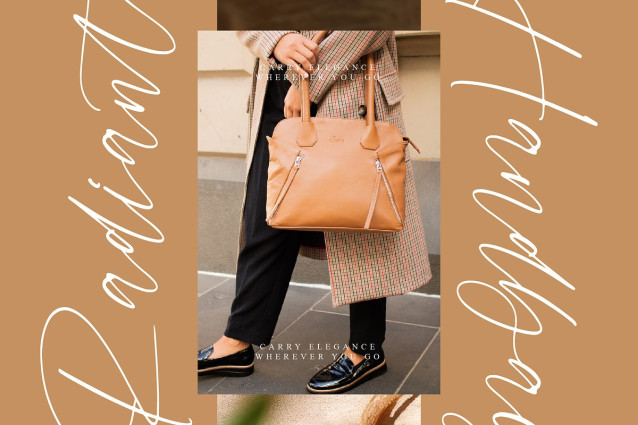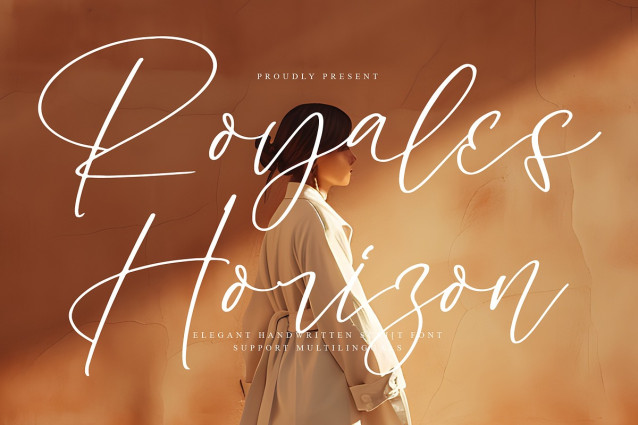
Royales Horizon Font
Royales Horizon Font – Elegant Handwritten Script Font, from Operatype, perfect for any project like: logos, branding projects, homewares designs, product packaging, mugs, quotes, posters, shopping bags, t-shirts, covers books, business cards, invitation cards, greeting cards, labels, photography, watermarks, special events and all your other luxury projects that require a premium taste.